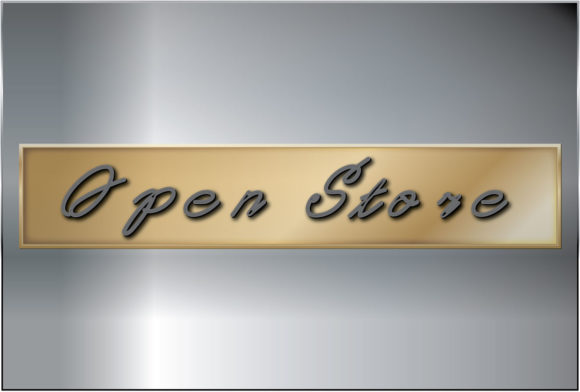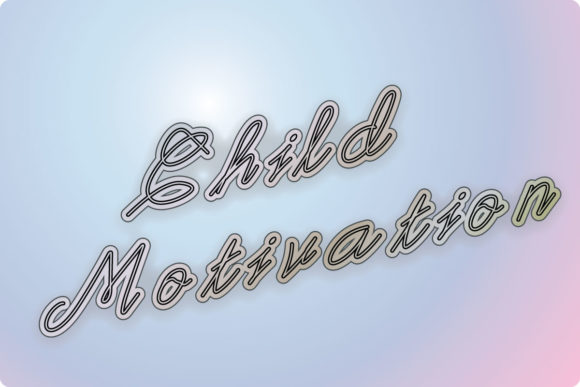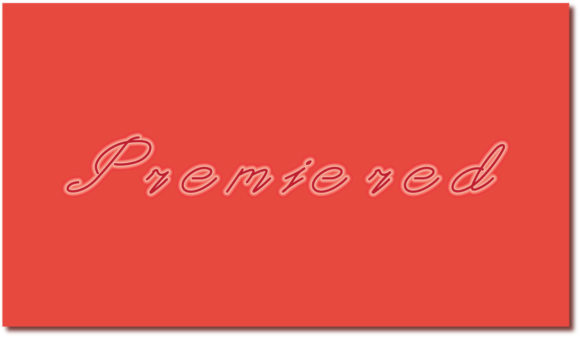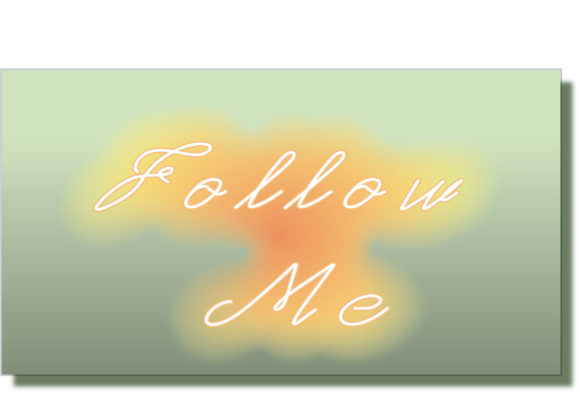
Open Store
About Open Store Font
Open Store is a neat and simple handwritten font. It has a clean, thin and smooth vibe and it will be a hit for any design that you want to add it to.It is suitable for any branding, product packaging, invitation, quote, t-shirt, label, poster, logo that you wish to develop.